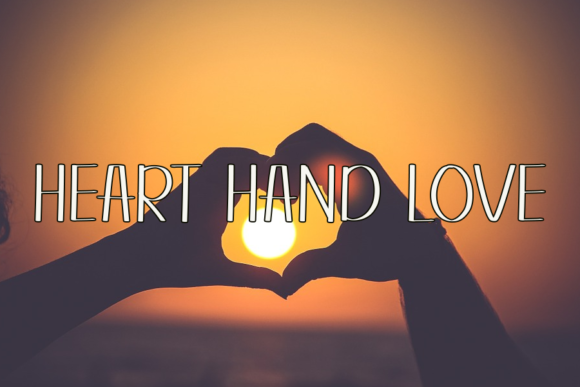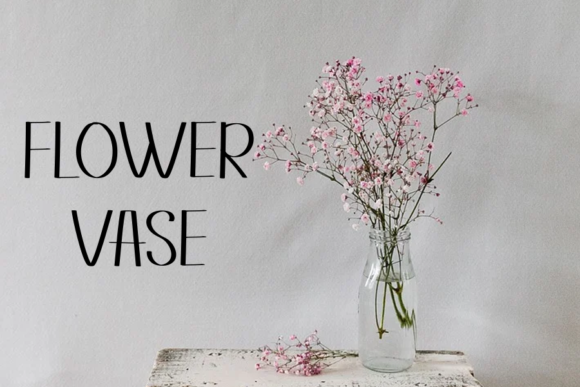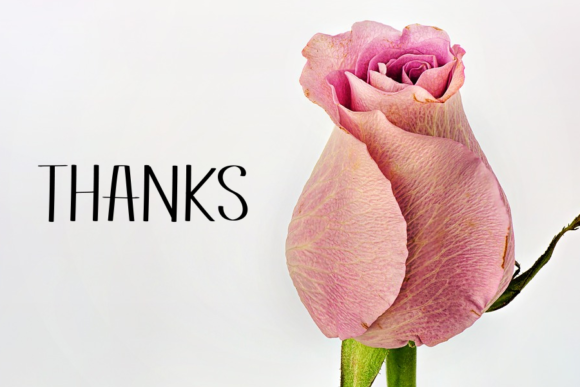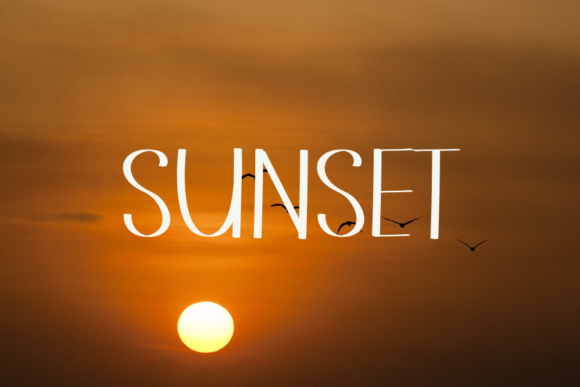
About Hello Sunday Font
Hello Sunday is a simple and clean handwritten font that can be used for all chalkboard quotes or teaching material! Its authentic look and feel will add a personal and realistic feel to your designs.